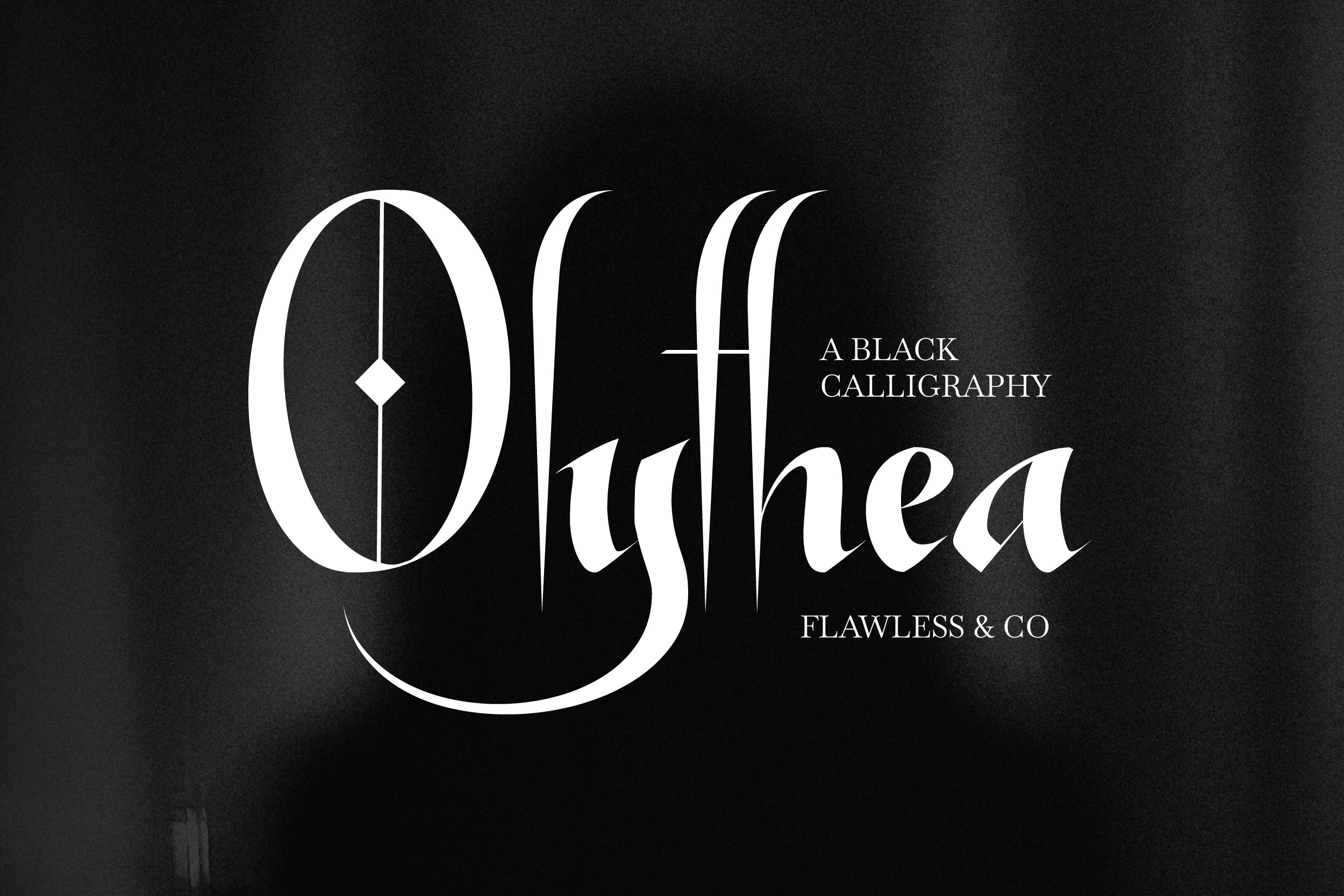
Olythea - Black Calligraphy Font
Olythea – Black Calligraphy Font
Olythea is a black calligraphy font inspired by classic handwritten calligraphy with a dark and elegant character. Featuring sharp curves, flowing strokes, and distinctive letterforms, Olythea brings a dramatic and refined gothic atmosphere to your typography. The font combines the expressive movement of calligraphy with subtle gothic influences, creating a unique style that feels mysterious, elegant, and classy. Its carefully crafted strokes provide a balanced look that maintains readability while delivering a strong visual identity.
Who Should Use Olythea?
Olythea is ideal for designers, creatives, and brands looking for a gothic calligraphy font that combines elegance, artistic expression, and a distinctive visual style.
Suitable For:
- Logo and brand identity design
- Editorial and creative typography
- Book covers and posters
- Fashion and beauty branding
- Packaging and product labels
- Social media graphics
- Website headers and digital design
- Decorative calligraphy typography